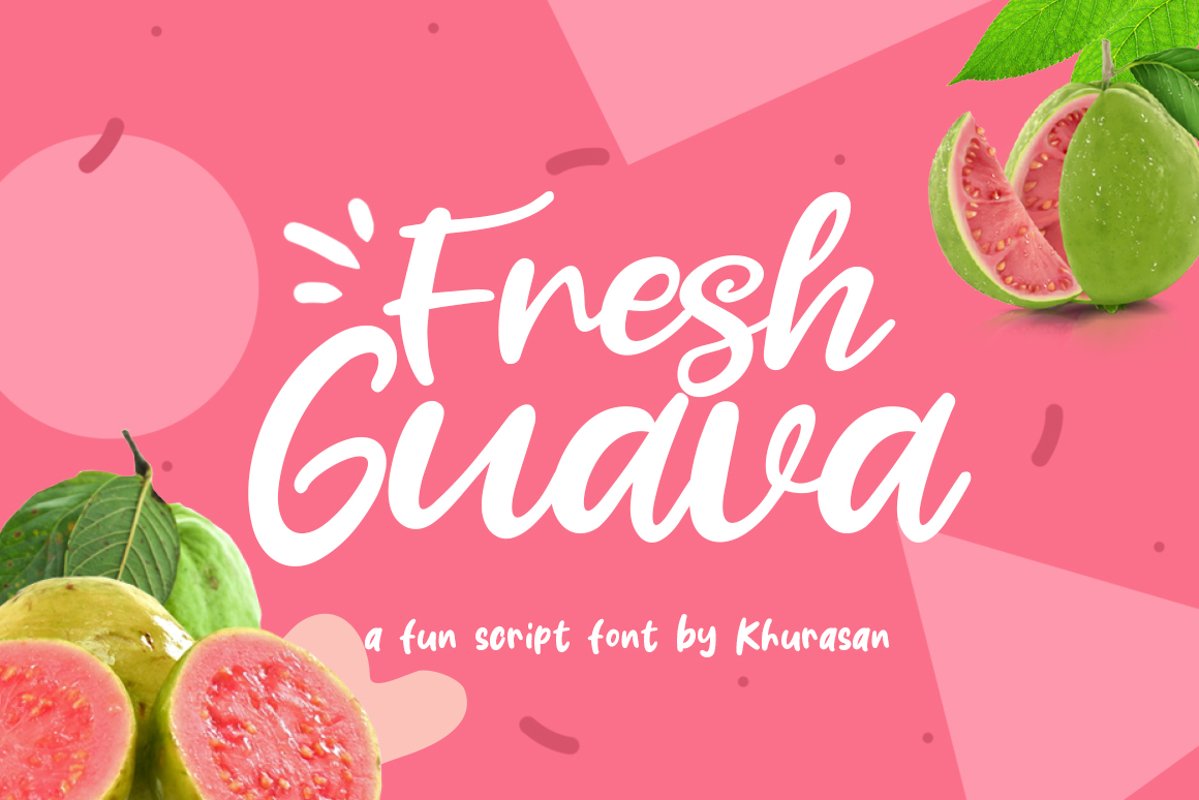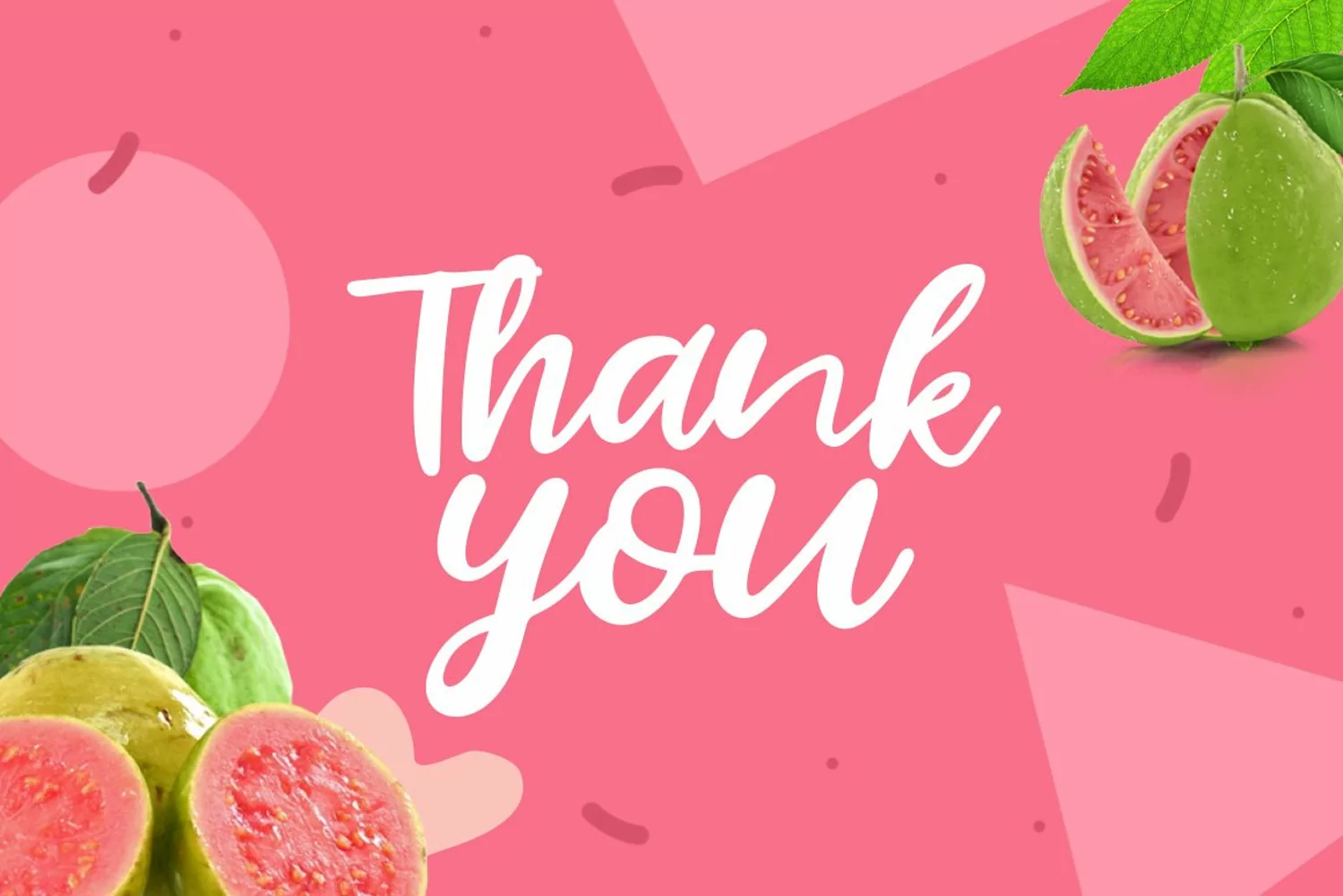
Introducing, Fresh Guava font a fun script typeface with cheerful theme for your fun project. Fresh Guava font support multilanguage. Fresh Guava font suitable for logo, branding, greeting card, poster and any design that you create.